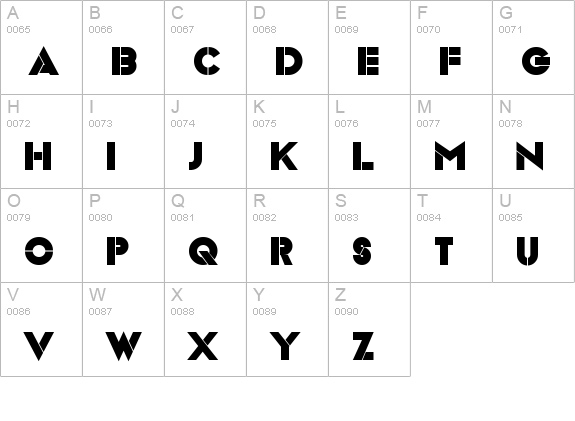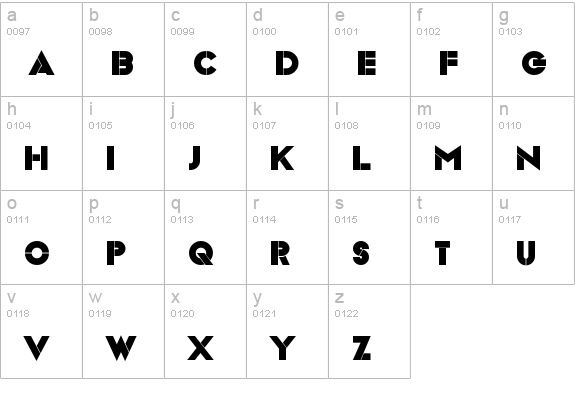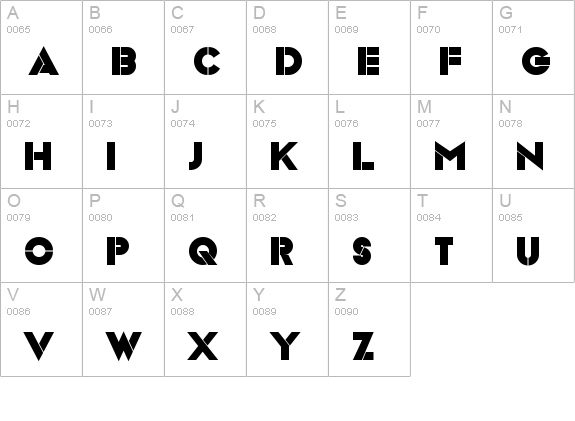
Videopac Bold is a strong, high-contrast variant in the Videopac typeface family \xE2\x80\x94 well suited to headlines, attention-grabbing titles, and strong calls-to-action.
Videopac Bold font is the epitome of elegance and confidence. With its strong and bold lines, this font commands attention and exudes a sense of power. It is perfect for headlines, titles, and any design project that requires a striking and impactful visual presence. The Videopac Bold font is meticulously crafted, creating a harmonious balance between its boldness and readability. Every letter is carefully designed to ensure legibility even at smaller sizes, making it versatile for both print and digital applications. But what makes the Videopac Bold font even more remarkable is that it is freely available to download at FontsMarket.com. This means that designers, creatives, and enthusiasts alike can access this exceptional font without any cost or restrictions. FontsMarket.com is a trusted source for high-quality fonts, and their commitment to providing this font for free showcases their dedication to supporting the design community. Whether you're working on a logo, branding materials, or any design project that demands attention, the Videopac Bold font will undoubtedly elevate your work to new heights. Its bold and commanding presence will captivate your audience and leave a lasting impression. Download the Videopac Bold font today at FontsMarket.com and unleash its power in your designs. Experience the freedom to create stunning visuals without any limitations and let this font be your secret weapon in making a bold statement.